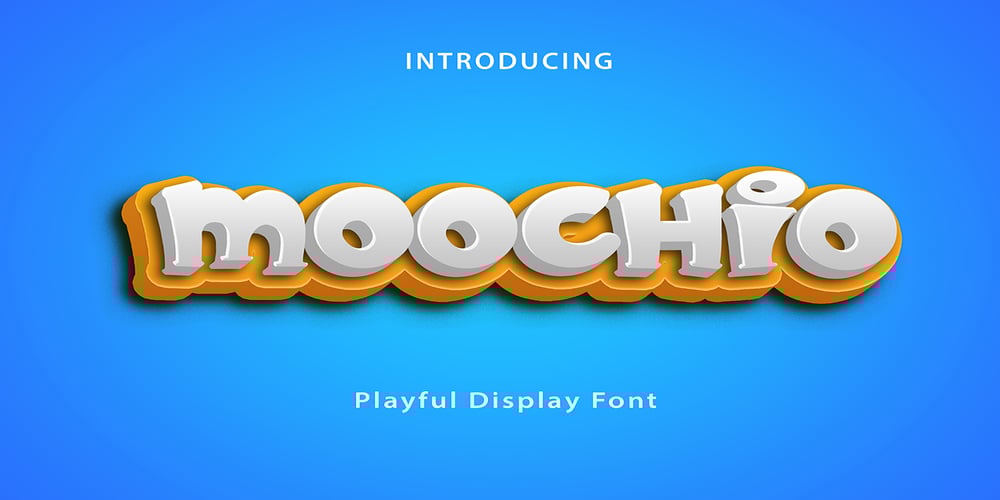
Moochio Font Family was designed by Rizki Kurniawan and published by Brothergrounds Studio. Moochio contains 1 styles and family package options. Introducing Moochio – Display Craft Font with strong and challenging nuances. very suitable for the title, typography, magazines, brochures, packaging and much more for your design needs, making your designs more modern and professionalWhat’s Included :+ Standard glyphs+ Web Font+ Works on PC & Mac+ Simple installationsAccessible in the Adobe Illustrator, Adobe Photoshop, Adobe InDesign, even work on Microsoft Word.PUA Encoded Characters – Fully accessible without additional design software.Fonts include multilingual supportImage used : All photographs/pictures/vector used in the preview are not included, they are intended for illustration purpose only.Cheers! Thank You